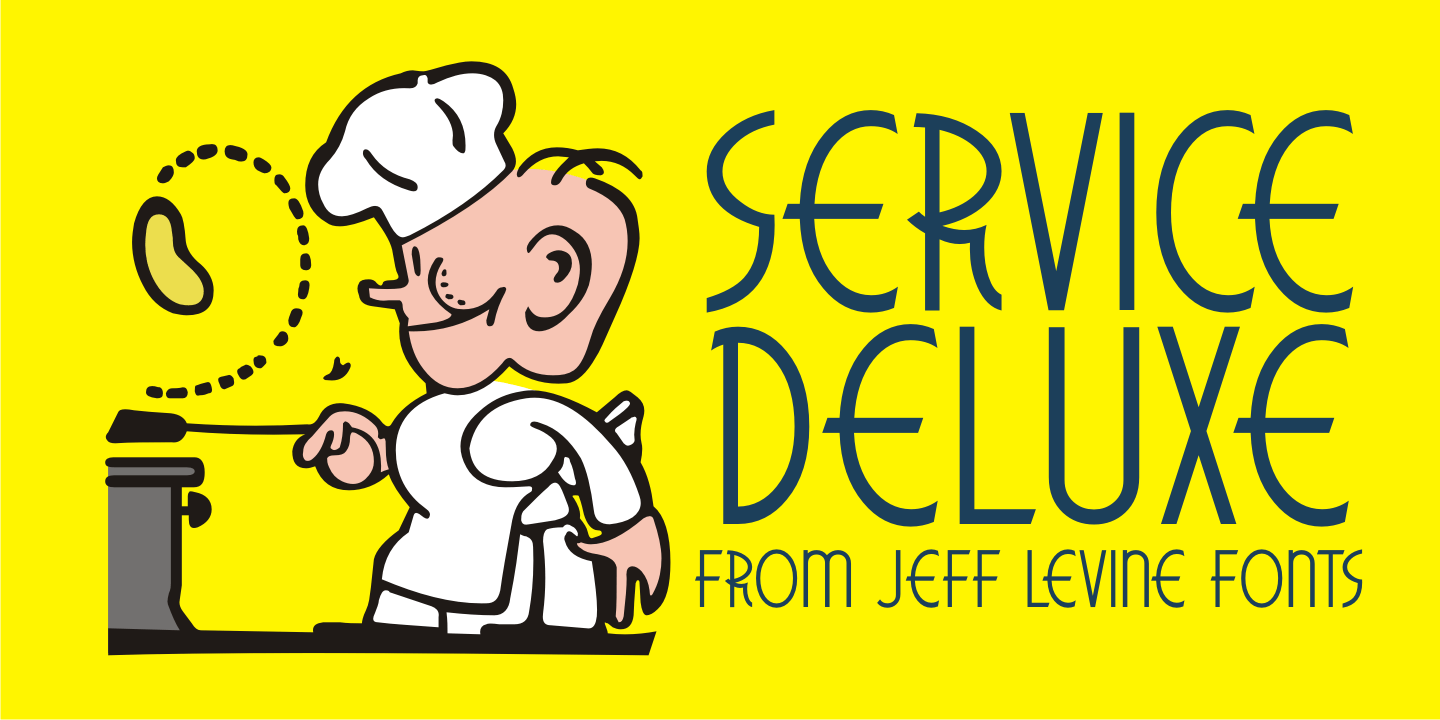
Service Deluxe
Titles from the 1938 movie 'Service Deluxe' starring Vincent Price and Constance Bennett were the inspiration for the similarly named Art Deco typeface Service Deluxe JNL.
Service Deluxe JNL Regular by Jeff Levine Fonts